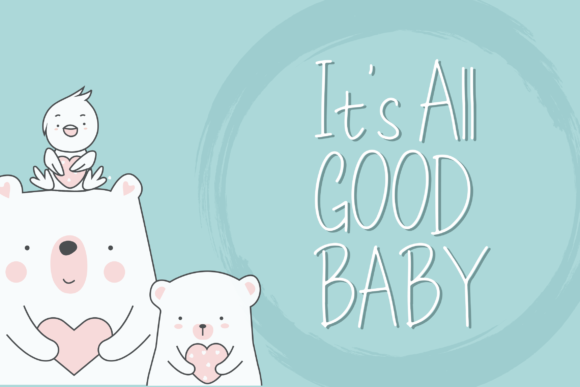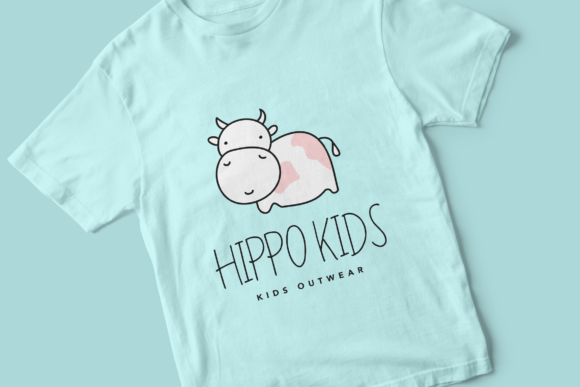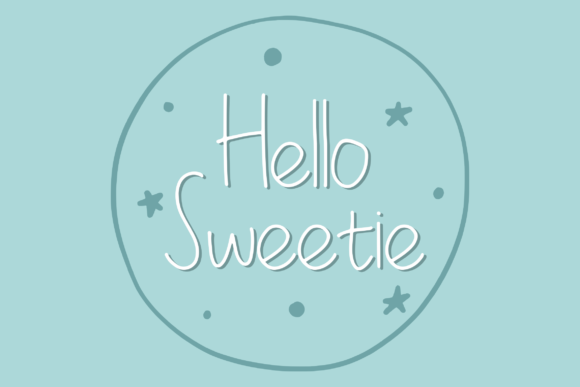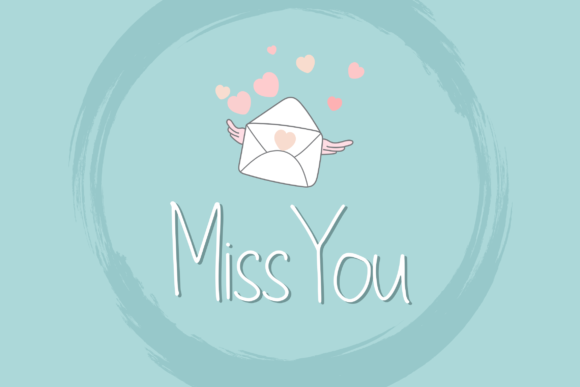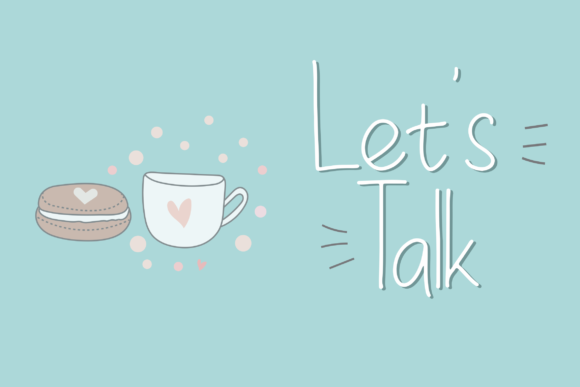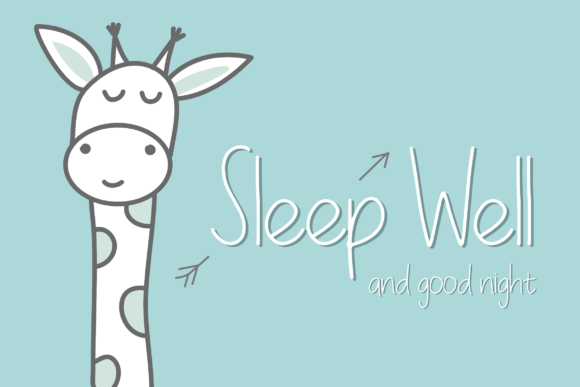
Introduction to La Petite Font
La Petite is a soft and friendly script with an energetic feel.
It’s the perfect font for adding a whimsical feel to any design project .
Key Features of La Petite Font